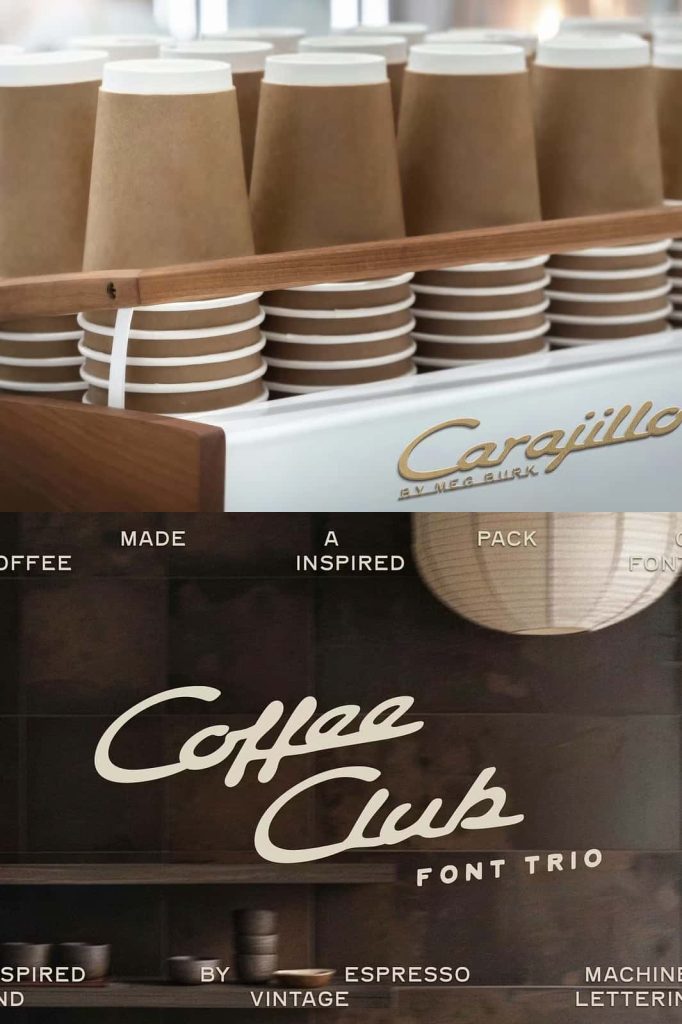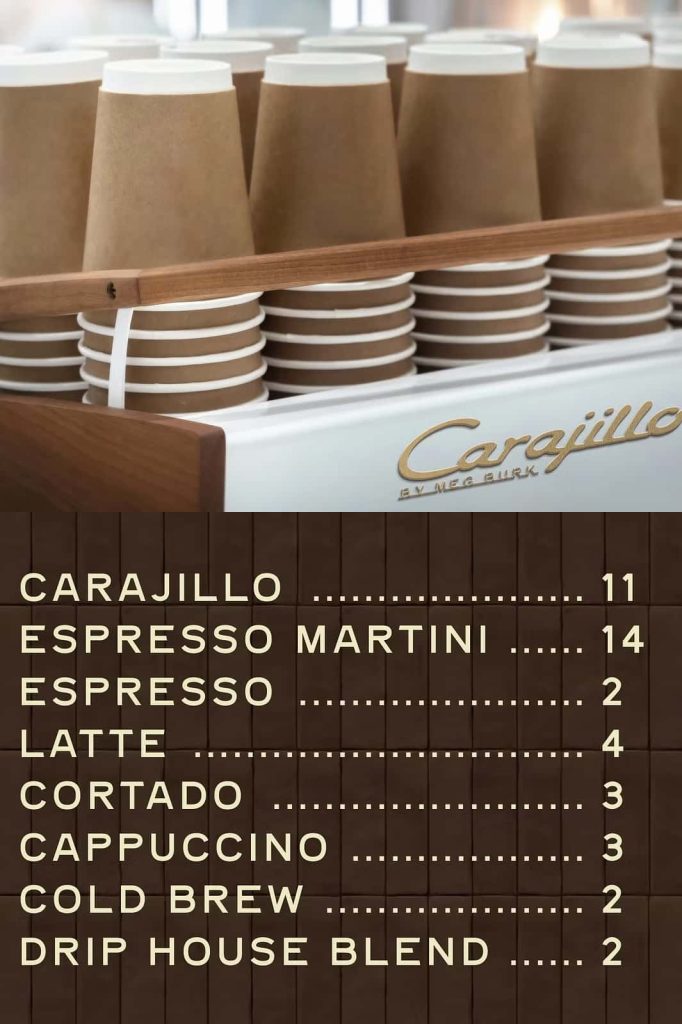
Carajillo Font Collection: A Bold Typeface Inspired by Espresso Machine Design
Carajillo font collection transforms everyday café inspiration into a distinctive and powerful typographic system. Drawing influence from the metal nameplates found on espresso machines, this collection captures the craftsmanship, identity, and personality embedded in those small yet impactful design details.
Each font within the Carajillo collection reflects the unique visual language of café culture. From engraved logos to embossed emblems, the design pays close attention to how typography appears in real-world environments. This approach allows designers to create work that feels authentic, grounded, and visually compelling.
Inspired by Espresso Machine Nameplates
The core inspiration behind Carajillo comes from espresso machine nameplates. These metal badges often feature carefully crafted lettering that communicates brand identity through form and material. Designers of this font collection studied these elements closely and translated them into a modern typographic system.
Each character reflects the precision and structure seen in these nameplates. Clean edges, balanced proportions, and subtle detailing create a typeface that feels both industrial and refined. This unique combination sets Carajillo apart from conventional fonts.
Turn Industrial Design into Typography
Carajillo allows designers to bring industrial aesthetics into their work without losing elegance. The fonts capture the strength of metal craftsmanship while maintaining clarity and readability.
This makes the collection ideal for projects that require a bold yet sophisticated visual identity.
A Typeface Rooted in Café Culture
Carajillo celebrates the experience of exploring cafés and appreciating their unique details. Each café has its own personality, often reflected in its equipment and branding. The font collection embraces this diversity, offering styles that feel inspired by real environments.
This connection to café culture adds depth and authenticity to the design. It allows designers to create work that resonates with audiences who value creativity, craftsmanship, and everyday experiences.
Capture the Atmosphere of Modern Cafés
The fonts evoke the feeling of stepping into a new café and noticing the details that make it special. This sense of discovery brings energy and character into your designs.
By using Carajillo, you can create typography that feels alive and connected to real-world inspiration.
Distinctive and Memorable Visual Style
Carajillo font collection offers a strong and recognizable visual identity. Its inspiration from metal emblems gives it a structured and confident appearance, while subtle variations add personality and uniqueness.
This balance allows the fonts to stand out without overwhelming the design. They create a memorable impression while maintaining a clean and professional look.
Build Unique and Recognizable Designs
Designers can use Carajillo to craft typography that feels original and distinctive. The collection supports strong branding by providing a consistent yet flexible visual language.
This helps your projects stand out in competitive markets and leaves a lasting impact on your audience.
Perfect for Branding, Packaging, and Creative Projects
Carajillo adapts easily to a wide range of design applications. It works exceptionally well for café branding, product packaging, logos, and promotional materials. Its connection to coffee culture makes it especially relevant for food and beverage businesses.
However, the collection’s versatility extends beyond cafés. Designers can use it for lifestyle branding, editorial layouts, and creative campaigns that require a bold and modern aesthetic.
Create Authentic and Engaging Brand Experiences
By incorporating Carajillo into your designs, you can build branding that feels genuine and relatable. The font’s real-world inspiration adds authenticity, helping brands connect with their audience more effectively.
This authenticity enhances the overall design, making it more engaging and memorable.
Versatile Across Digital and Print Media
Carajillo performs effectively across both digital and print platforms. Its structured design ensures readability, while its distinctive style maintains visual interest. Whether used on menus, websites, or packaging, the font collection delivers consistent results.
This versatility makes it a reliable choice for designers working across multiple mediums. It supports a wide range of creative needs without compromising quality.
Maintain Consistency in Your Design System
The cohesive nature of the Carajillo font collection helps unify different elements within your projects. It ensures that your typography remains consistent, enhancing the overall visual experience.
This consistency allows designers to maintain a professional standard while exploring creative possibilities.
Carajillo font collection offers a unique combination of industrial inspiration, cultural relevance, and modern design. Its roots in espresso machine nameplates and café exploration make it a distinctive addition to any designer’s toolkit.
By choosing Carajillo, you gain a font collection that enhances both creativity and storytelling. It allows you to create designs that feel authentic, engaging, and visually compelling. For branding, packaging, and creative projects, Carajillo delivers a rich and inspiring typographic experience.